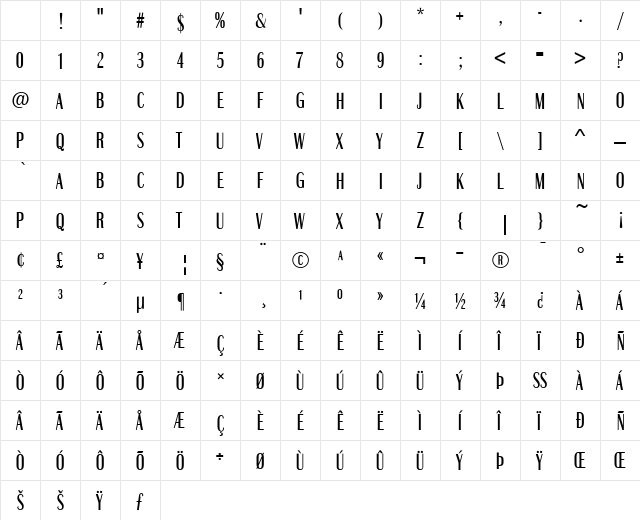
Complete Britannic Compress D Regular glyph index. Displaying only characters natively supported by Britannic Compress D Regular font.
Britannic Compress D is a composed and adaptable typeface that performs quietly and consistently across a wide range of design contexts.